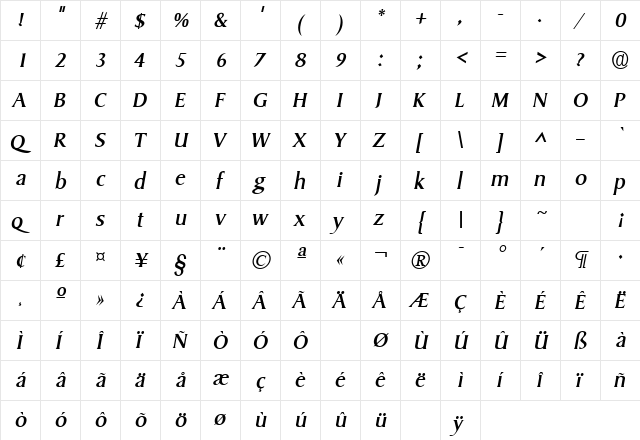
Sydney Italic
Design Context for Sydney Typeface
Sydney takes a measured approach to typography — its balanced proportions and neutral character make it a reliable workhorse for both digital and print work. The slanted form adds forward momentum and visual energy.
Pro Tip: Try Sydney for annotation and caption copy alongside an upright companion — the contrast in angle creates a dynamic but ordered typographic system.